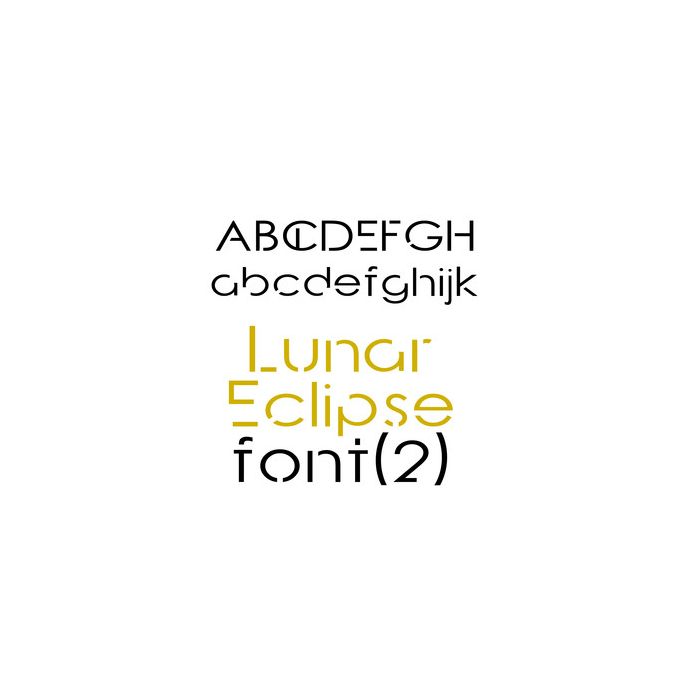
lunar eclipse font(2)
Lunar Eclipse 2 is the complimentary font to it's parent "Lunar Eclipse." It's full of fun cuts and extra bars to give it a killer futuristic look.